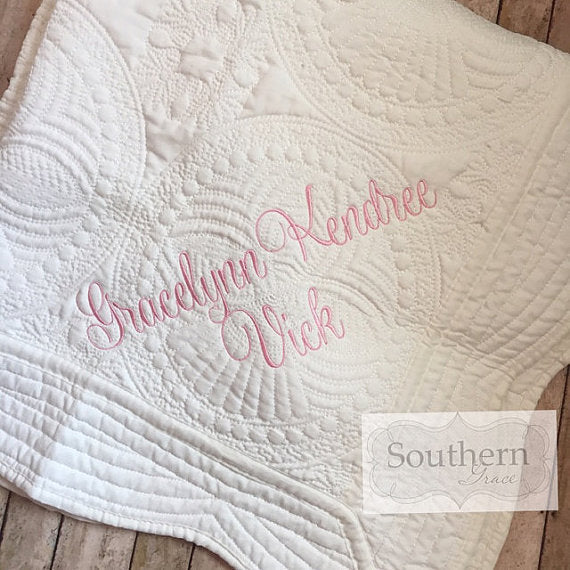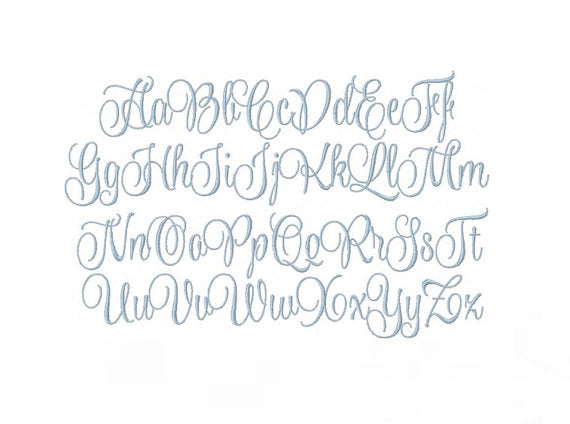
Evie Satin Script Embroidery Font for unique crafting projects
Evie Satin Script Embroidery Font
Unleash your creativity with the Evie Satin Script Embroidery Font, an exclusive offering by HERRINGTONDESIGN.COM. This delightful font package includes satin stitch uppercase and lowercase letters along with numbers 0-9 in sizes 1", 2", and 3". Note that sizes 4", 5", and 6" are too broad for a satin stitch number. Ideal for crafters and DIY enthusiasts, the Evie font enhances any project with its elegant design.